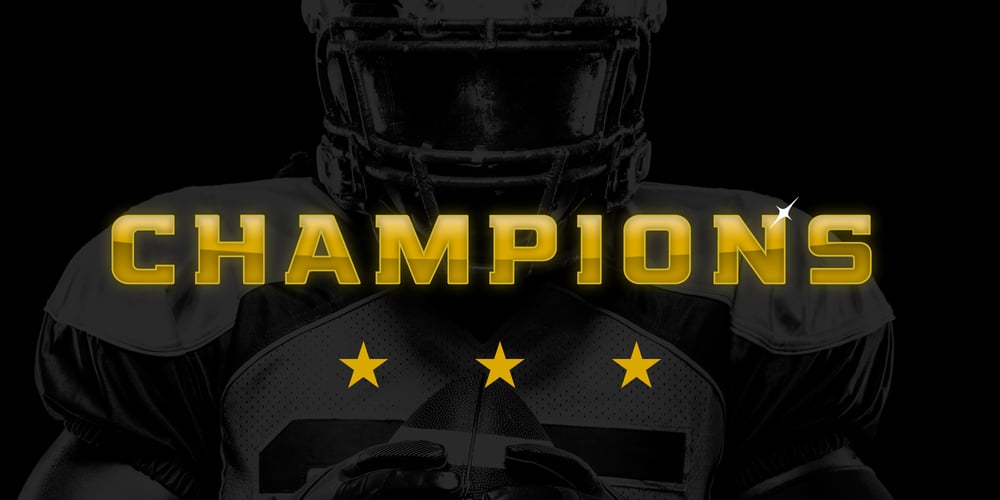
Champions Font Family was designed by TJ Harley and published by TypeDrift. Champions contains 2 styles and family package options. Champions is our best-selling typeface that has been completely rebuilt, from the ground up. Now featuring special characters, alternate glyphs and a sans serif version. This is the font champions are made of.